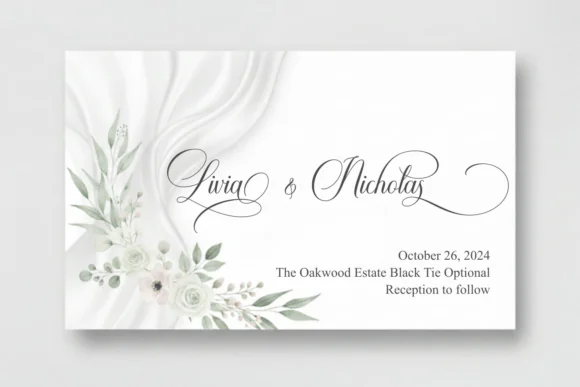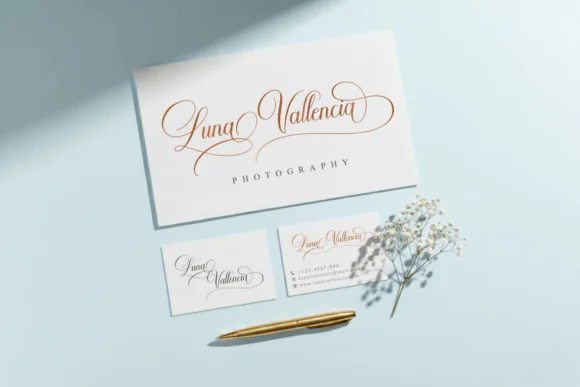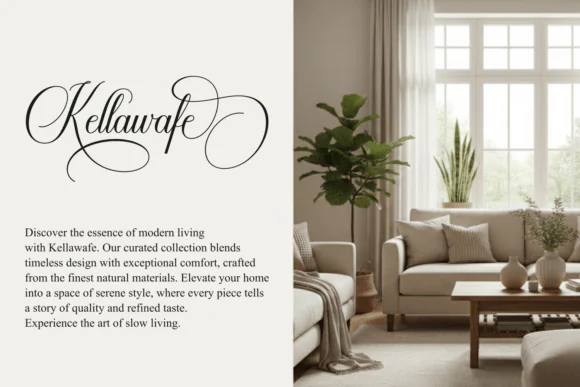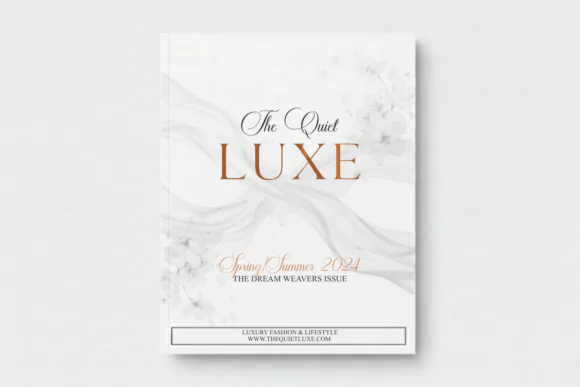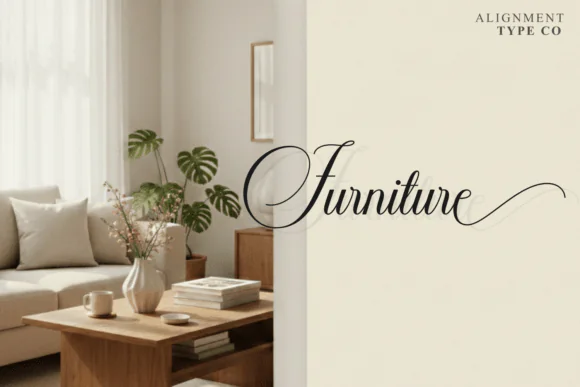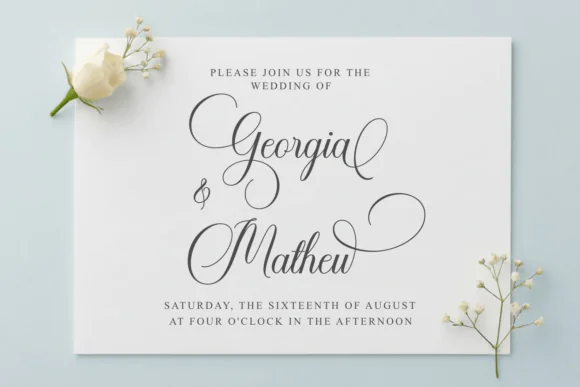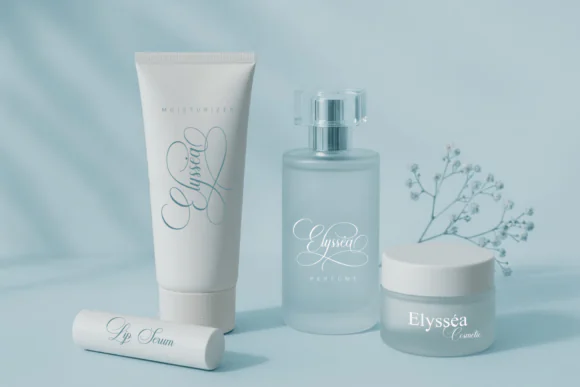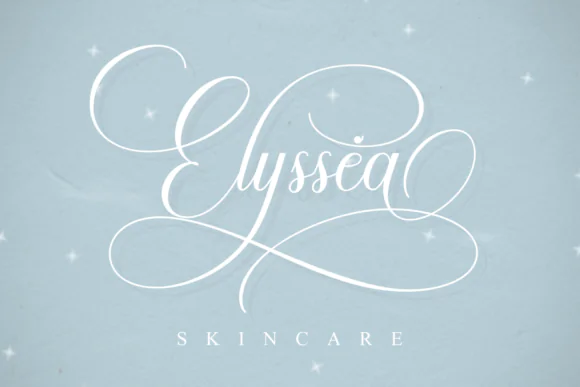
Alignment Modern Calligraphy Script Font – Elegant Feminine Typeface with Swashes & Glyphs for Branding, Logos, Wedding Invitations, Luxury Packaging, Quotes, Fashion & Beauty Designs
Create sophisticated, romantic, and high-end designs with Alignment Font, a modern calligraphy script typeface featuring elegant swashes, smooth handwritten strokes, and beautifully flowing letterforms. Designed with a stylish, feminine, and luxurious feel, this font is perfect for creative projects that need a polished handwritten look.
Alignment Font works beautifully for branding, logo design, wedding invitations, bridal stationery, luxury packaging, product labels, social media graphics, fashion projects, beauty branding, quotes, greeting cards, printable designs, and elegant promotional materials. Its graceful curves and balanced contrast help your text look premium while remaining clean and readable.
This font is especially useful for designers, crafters, wedding creators, boutique owners, branding specialists, beauty brands, fashion sellers, and digital product creators who want a classy script font for both digital and print designs. It is also PUA encoded, allowing easy access to glyphs and swashes so you can create more decorative and customized typography layouts.
Branding, logos, wedding invitations, bridal stationery, luxury packaging, product labels, beauty branding, fashion designs, social media posts, romantic quotes, greeting cards, printable wall art, stickers, boutique designs, and elegant marketing materials.
Key Features
• Modern calligraphy script font style
• Elegant swashes and smooth handwritten strokes
• Stylish, feminine, romantic, and luxurious appearance
• Flowing letterforms with beautiful curves
• Balanced contrast for a clean professional look
• Perfect for both digital and print creative projects